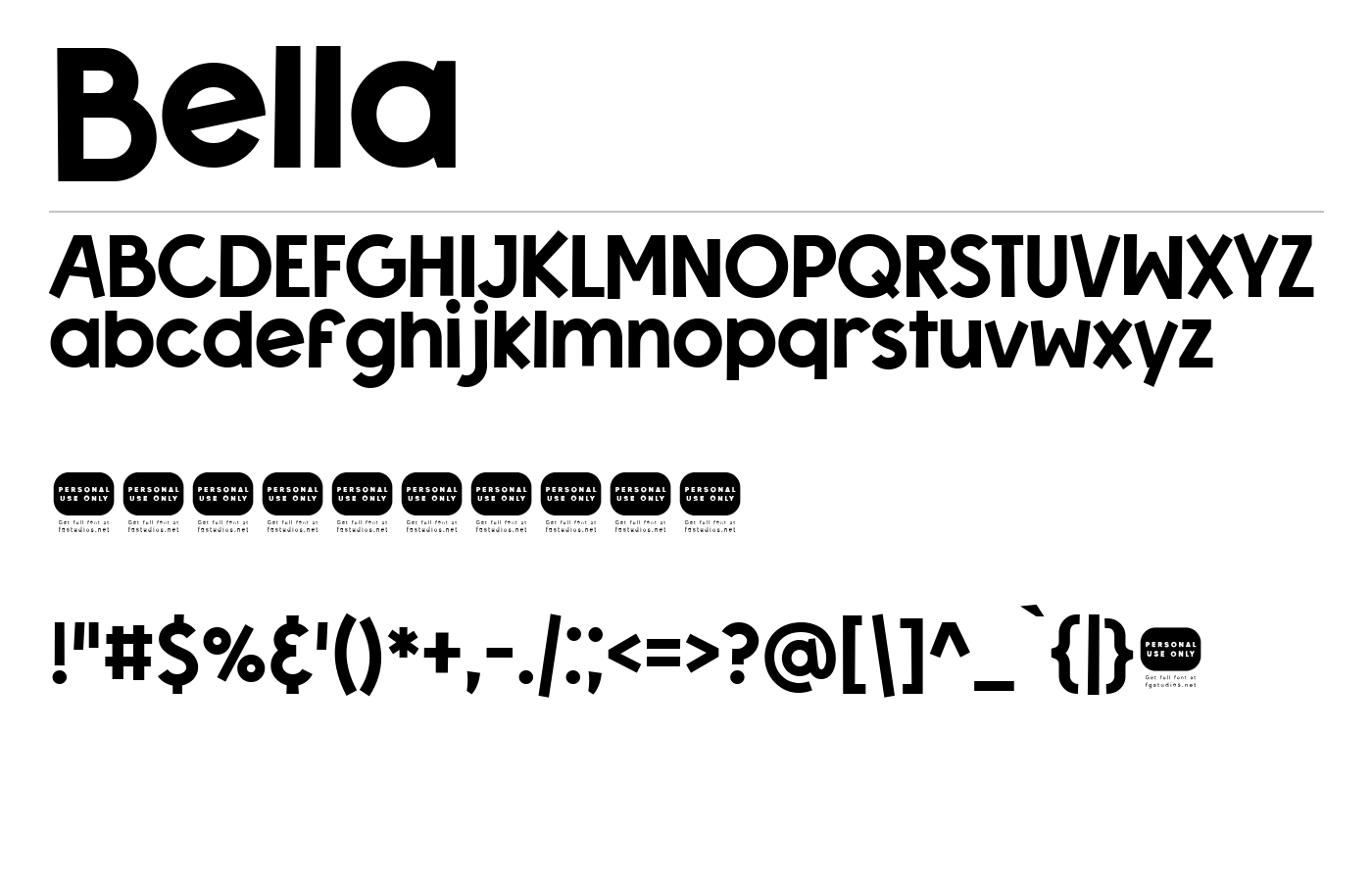
Bella is a bold, geometric sans serif font with a playful and modern character, featuring slightly quirky angled strokes that add personality without sacrificing readability. Its high x-height and uniform stroke weight make it ideal for eye-catching headlines, branding, and packaging where a friendly yet confident vibe is desired. This font works especially well for creative projects and businesses looking to project a fresh, approachable style.
Bella Font
About Bella Font